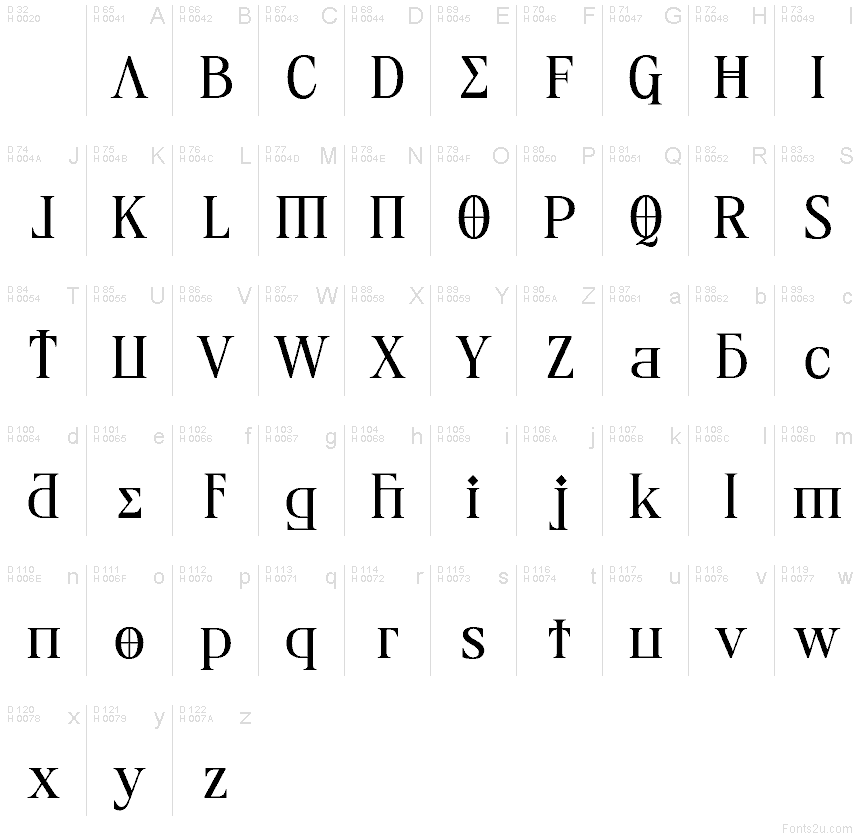
CS Gelios Regular Demo
CS Gelios font by Craft Supply Co. is a free regular Greek-inspired serif display font. It stands out with chiseled, wedge-like serifs, inky high-contrast strokes, and ritualistic alternates that nod to classical epigraphy without feeling dusty. Tight, steady spacing and crisp terminals give headlines a carved-from-marble clarity, while details like the diamond accents add a ceremonial spark.
Using CS Gelios, titles carry weight and a touch of myth—great for heritage logos, Mediterranean restaurant menus, wine or olive oil packaging, museum posters, book covers, and film title cards. This free font shines when set large; pair it with a clean grotesk for body copy to let the sculpted forms breathe.